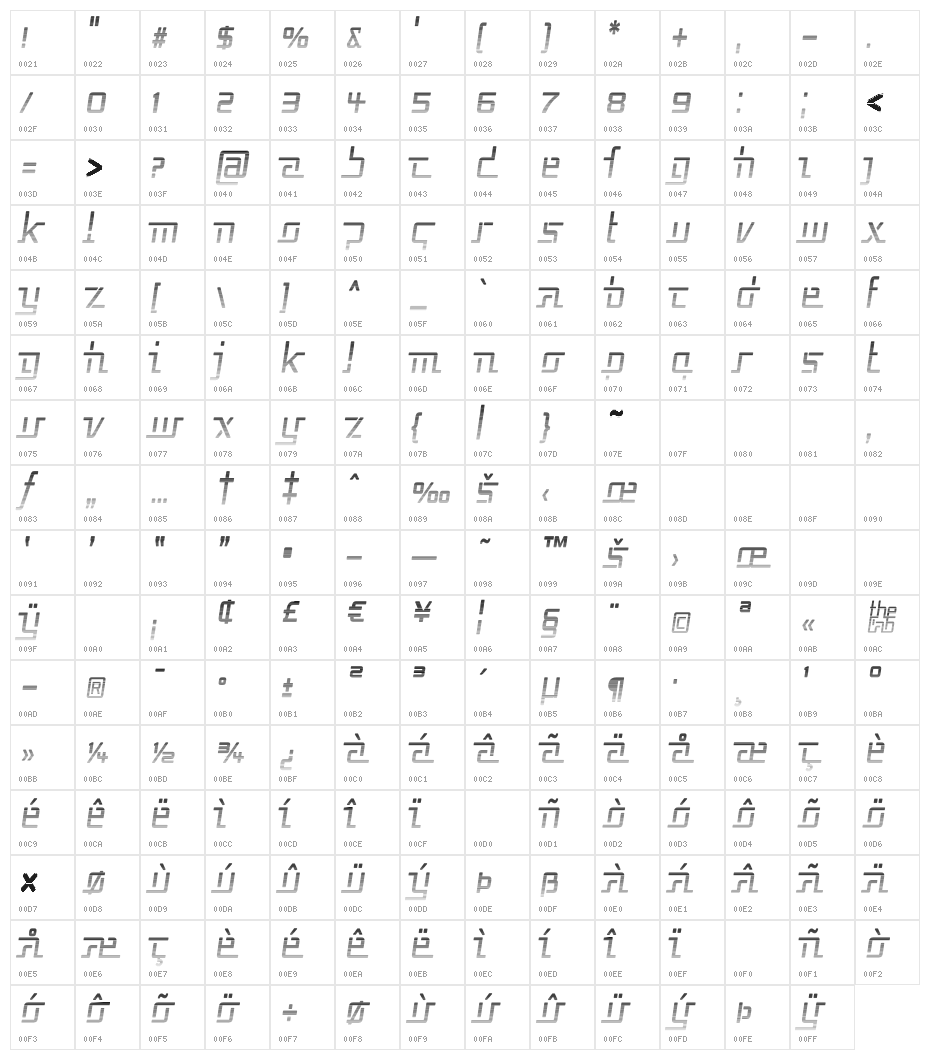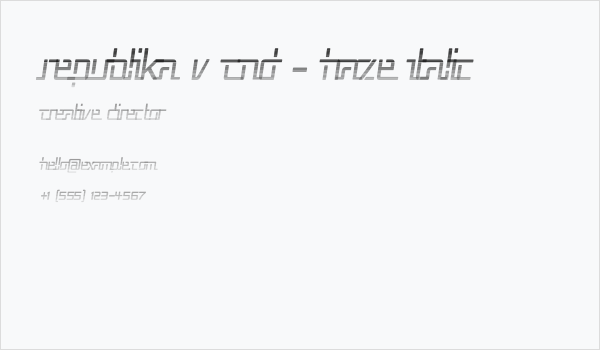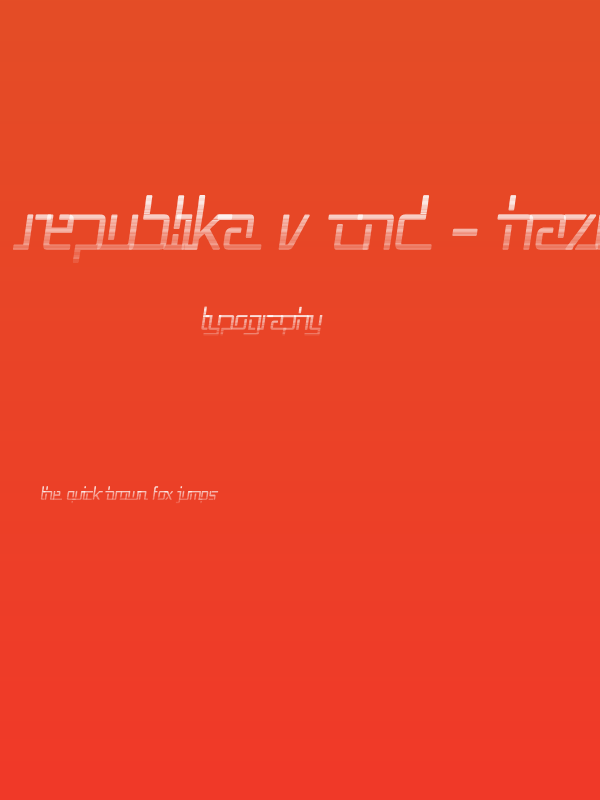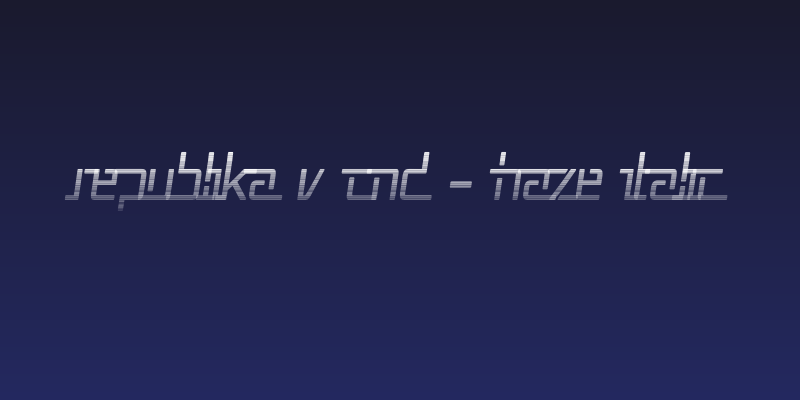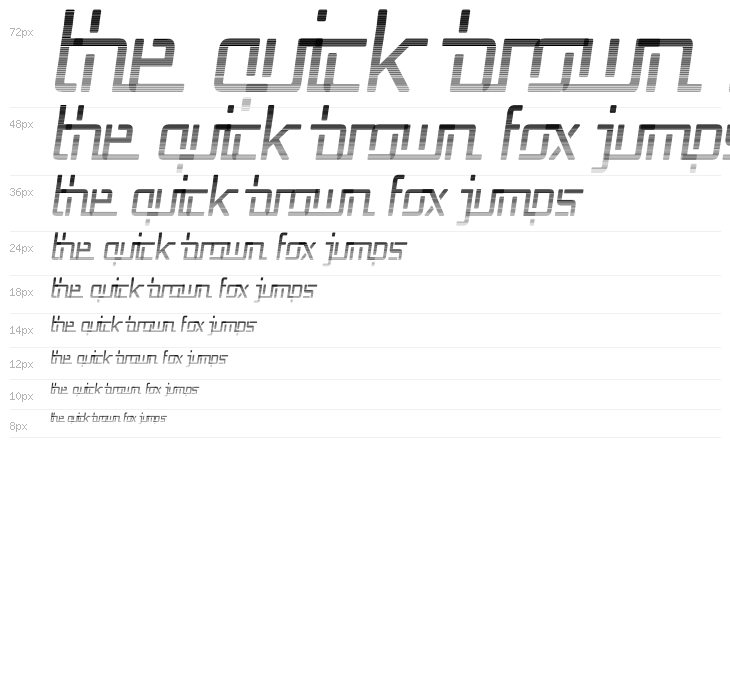
Republika V Cnd - Haze Italic Font
Republika V Cnd - Haze Italic Description
This font features a futuristic and geometric design with a distinct italic slant, giving it a dynamic and forward-moving appearance. The characters are constructed with a blend of straight lines and sharp angles, creating a sense of speed and modernity. The uppercase and lowercase letters maintain a consistent style, with a uniform height that enhances readability. Numbers and special characters are designed to match the angular and sleek aesthetic, making them ideal for digital and tech-oriented projects. The font's unique style is emphasized by its condensed width, which allows for efficient use of space while maintaining clarity.
| Use Case | Logos, Headlines, Digital Interfaces |
| Proposed Projects | Ideal for tech branding, digital interfaces, video game graphics, and futuristic-themed posters. |